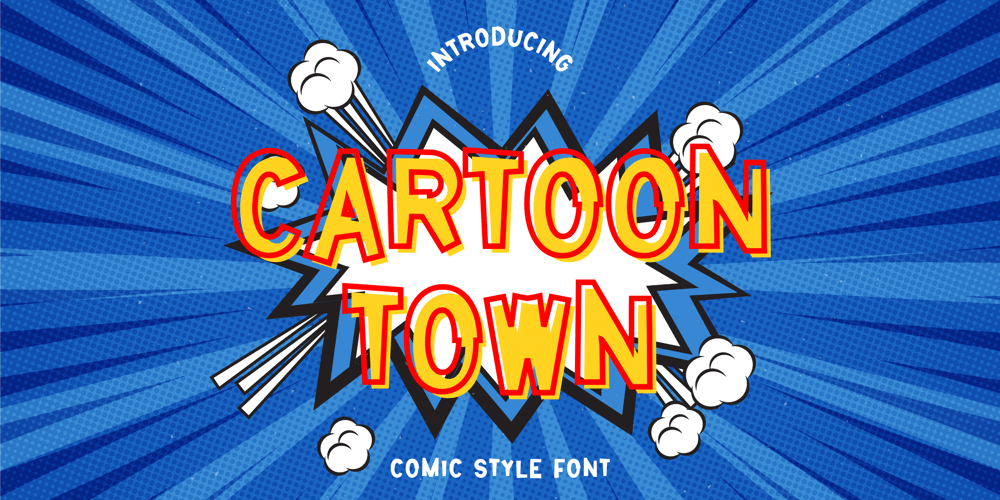
Cartoon Town Font Family was designed by Aditiyo Dwi Putranto and published by Creaditive Design. Cartoon Town contains 1 styles and family package options. Cartoon Town is a cute comic display font featuring well-shaped characters. It will add an incredibly joyful touch to your designs. Add this beautiful font to each of your creative ideas, and notice how it makes them stand out!